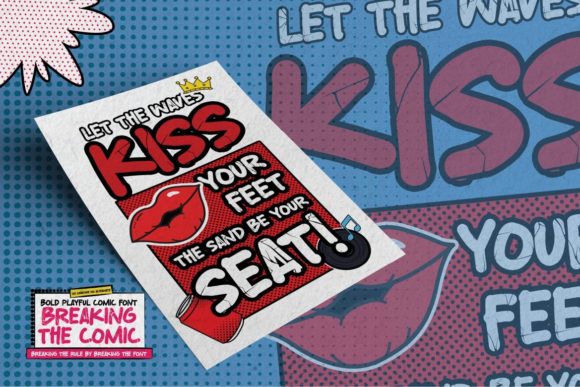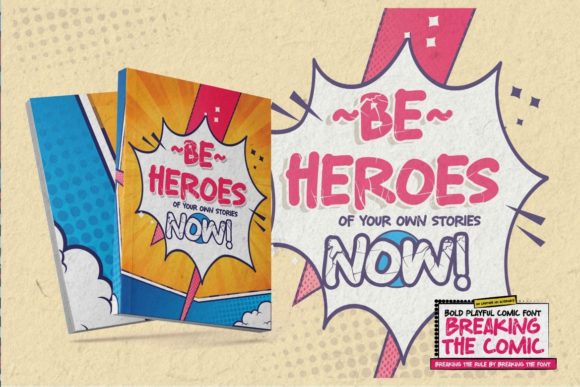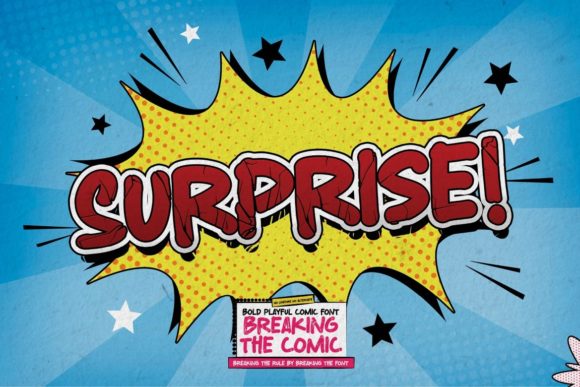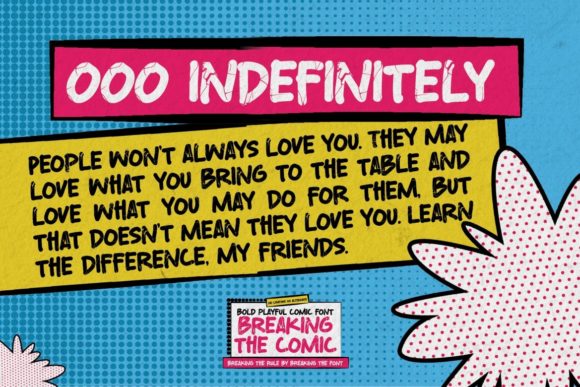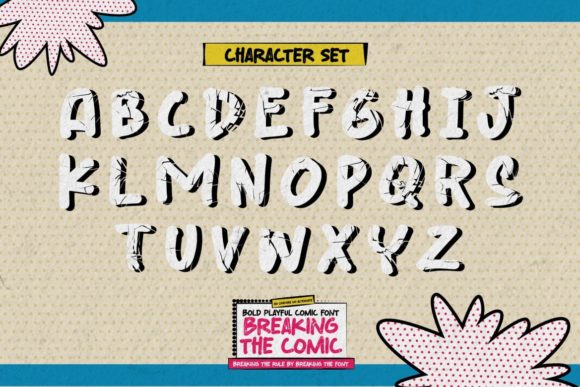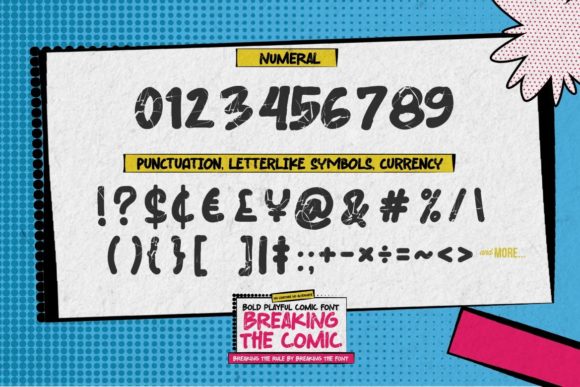
Breaking Free from the Ordinary: Introducing Breaking the Comic Font
Do you remember that moment when you first saw a font that made you go “wow”? For designers, it’s that instant spark that sets the creative wheels turning. It’s the moment you know you’ve found the perfect font to bring your project to life. For us, that moment came when we discovered Breaking the Comic Font – a cool and trendy display font that’s perfect for anything from t-shirts to sportswear logos.
Breaking the Comic Font is designed to make a statement. Its bold, playful style is ideal for designs that need a bit of flair. Whether you’re creating an advertisement, designing clothing, or working on a logo, this font is sure to break the mold. And that’s exactly why designers love it – it’s a valuable addition to any design toolkit, offering a unique way to express yourself and stand out from the crowd.
Breaking the Comic Font: Key Features
- Unique Characteristics: The font features a unique blend of comic book-inspired lettering and modern typography, making it ideal for graphic novels, comics, and children’s books.
Breaking the Comic Font Review
I recently had the chance to work with the “Breaking the Comic Font” and I must say, it’s been an interesting experience. Here’s my honest take on it.
- Unique aesthetic: The font has a distinct, quirky look that’s perfect for projects that need a bit of whimsy.
- Customization options: The font comes with a range of OpenType features that allow for some really cool effects.
- Legibility: While the font is great for headings and titles, it can be a bit challenging to read at smaller sizes.
- Consistency: I’ve noticed some inconsistencies in the font’s rendering across different platforms.
Overall, I think “Breaking the Comic Font” is a great choice for projects that need a bit of personality. Just be aware of its limitations and use it judiciously. With a little creativity and caution, it can be a real showstopper.
Alternatives to Breaking the Comic Font for Designers
Great Vibes is a playful, handwritten font perfect for creating a whimsical atmosphere. It’s ideal for use in logos, social media graphics, and advertising materials where a carefree feel is desired. Compared to Breaking the Comic Font, Great Vibes has a more elegant and refined look, making it suitable for a wider range of applications.
Carolyna Pro is a modern, cursive font that exudes sophistication and elegance. It’s suitable for use in branding, packaging, and editorial design where a touch of luxury is required. While Breaking the Comic Font is more playful, Carolyna Pro is more refined and polished, making it a better choice for formal or high-end projects.